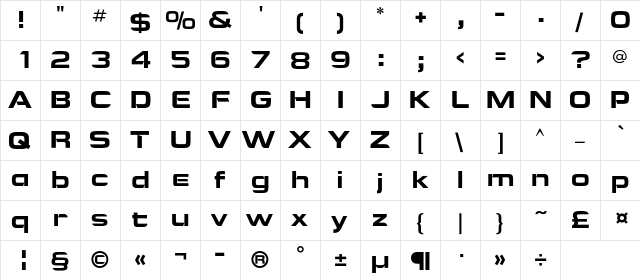
ManiaExtended-Regular Regular
Design Context for ManiaExtended-Regular Typeface
ManiaExtended-Regular offers clean, dependable letterforms without strong stylistic allegiance, making it a practical choice for designers who need flexibility.
Pro Tip: Use ManiaExtended-Regular in both headline and body roles to test its range before committing to a single application.